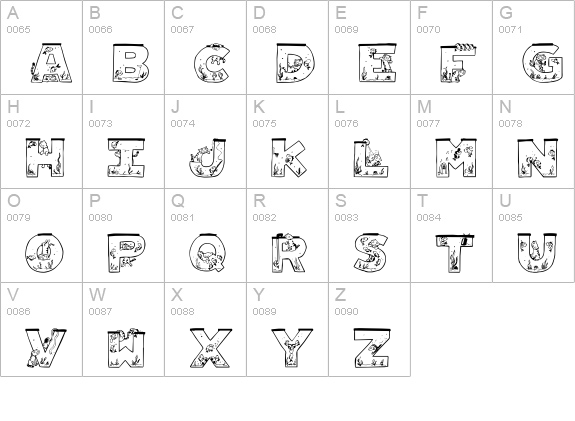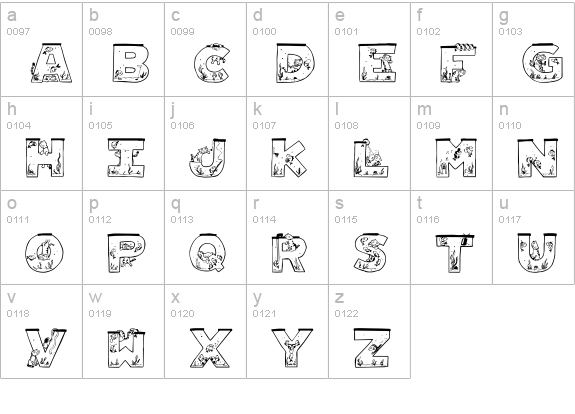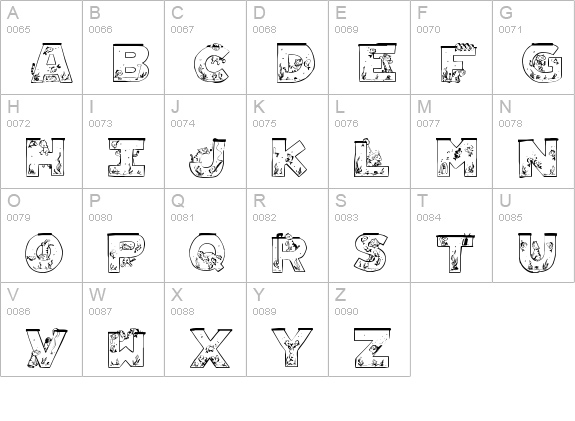
Aquarium Font Details
Introducing the captivating Aquarium font, a whimsical and playful typeface that will transport you to an underwater world of creativity. With its fluid lines and intricate details, this font brings to mind the graceful movements of fish swimming in a serene aquarium setting. Perfect for adding a touch of fun and fantasy to your projects, the Aquarium font is sure to make a splash! Best of all, this unique font is available for free download at FontsMarket.com. Whether you're designing a poster, creating a logo, or crafting a digital masterpiece, the Aquarium font will help you make a bold statement and stand out from the crowd. Dive into a world of endless possibilities with the Aquarium font today!